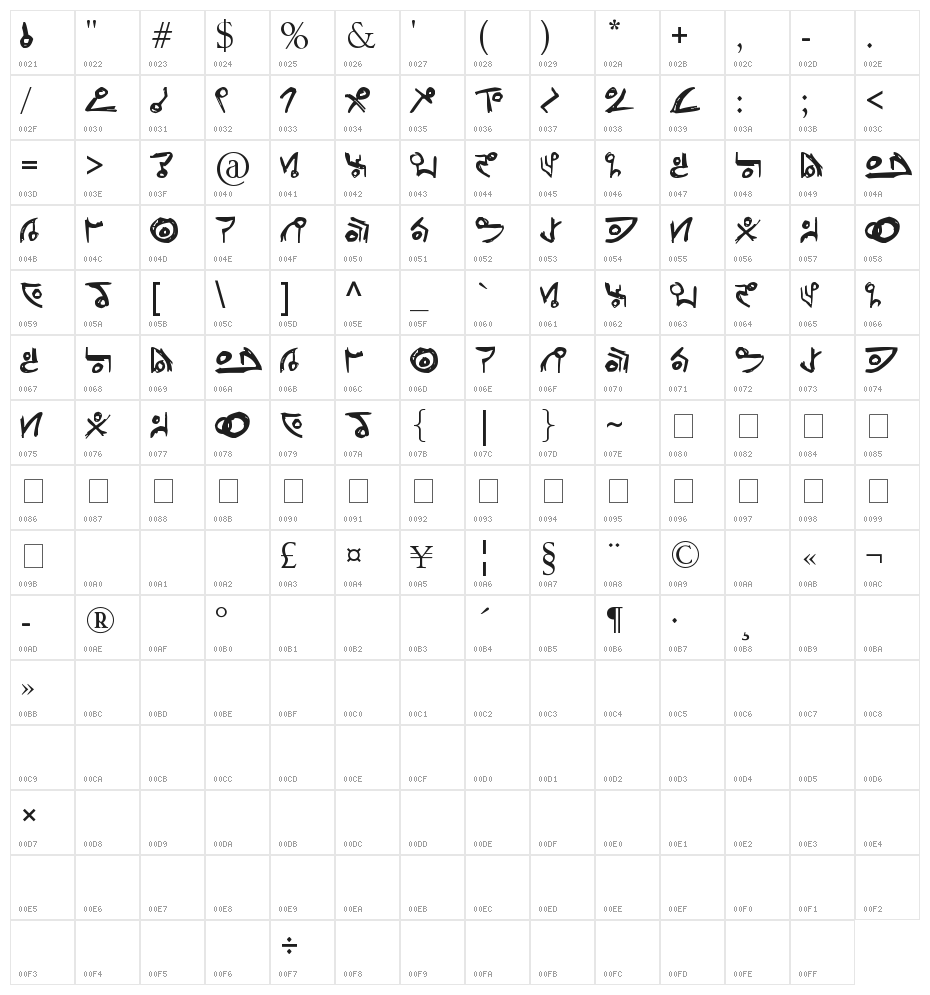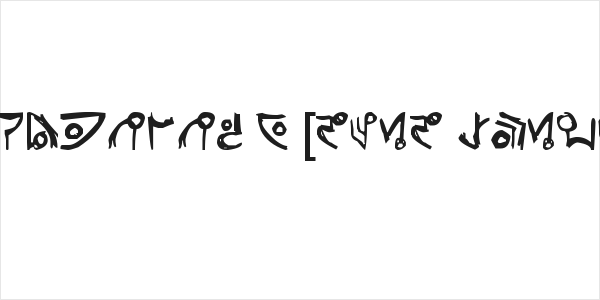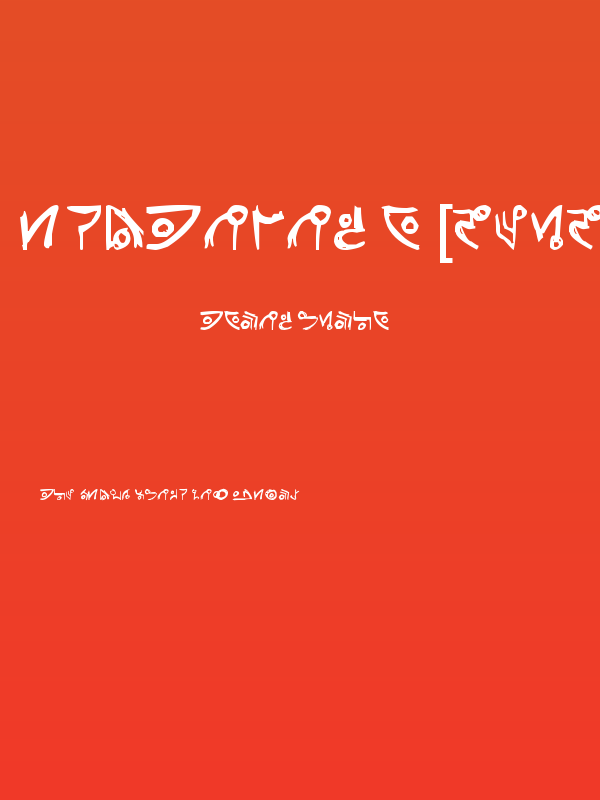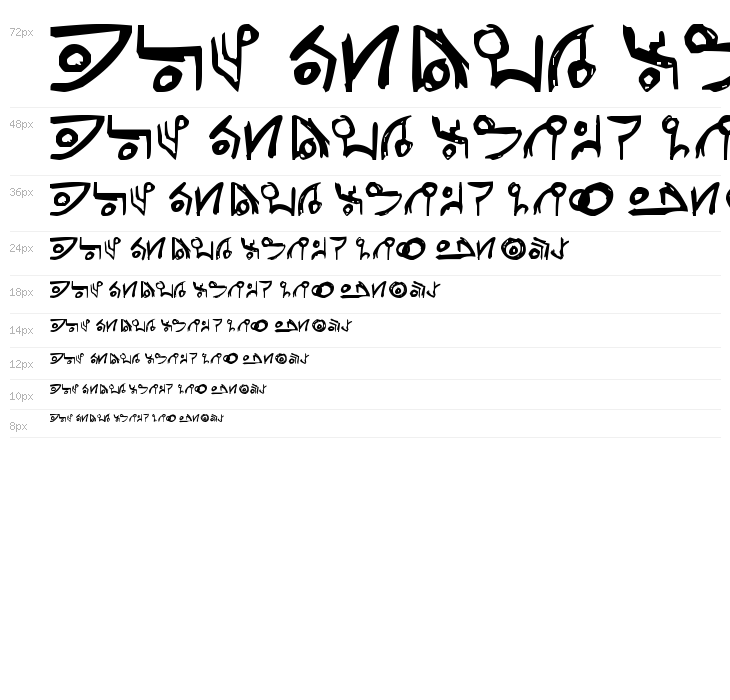
Unitology [Dead Space] Font
Unitology [Dead Space] Description
This font features a highly stylized, alien-like script with intricate curves and loops, reminiscent of ancient hieroglyphics or cryptic symbols. The characters are bold and have a hand-drawn appearance, with varying stroke thickness that adds a dynamic and mysterious feel. The overall design is unconventional and artistic, making it suitable for creative and thematic projects. The unique shapes and forms suggest a language from a fictional universe, perfect for use in science fiction or fantasy settings.
Use CaseLogos, Titles, Thematic Designs
Proposed ProjectsIdeal for science fiction or fantasy themed projects, video game design, movie titles, or any creative work requiring a mysterious and otherworldly aesthetic.